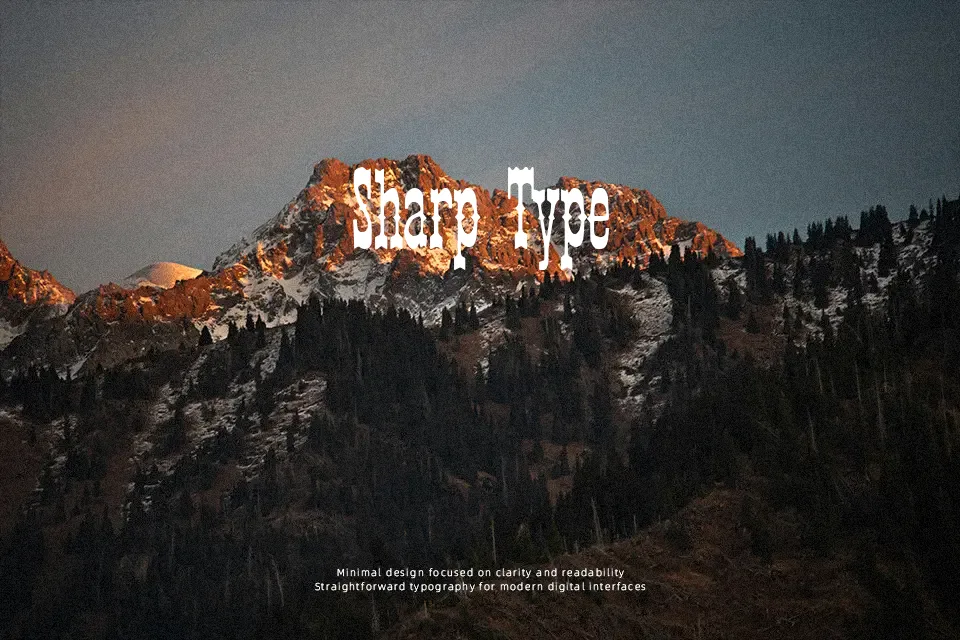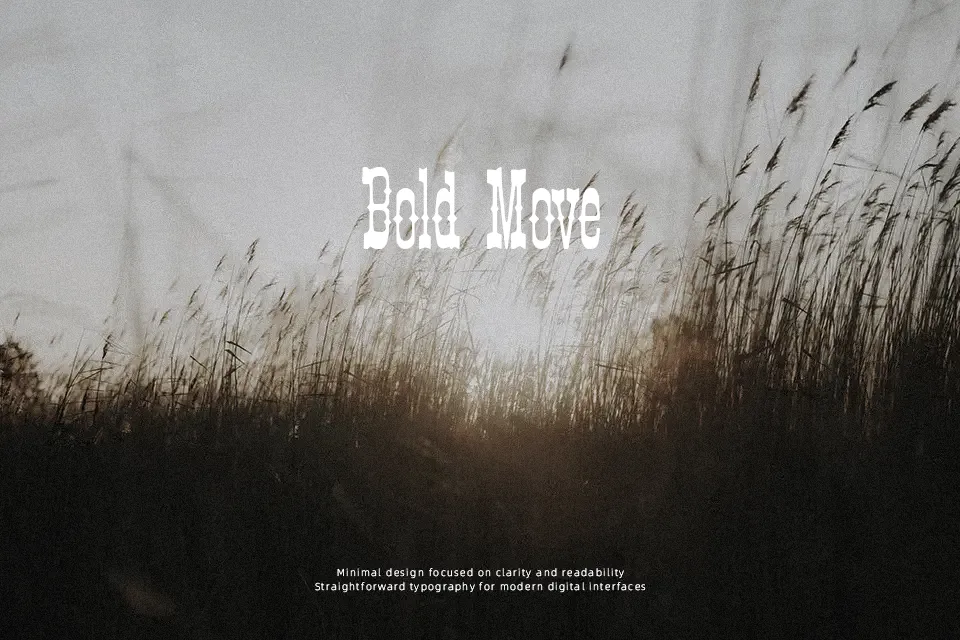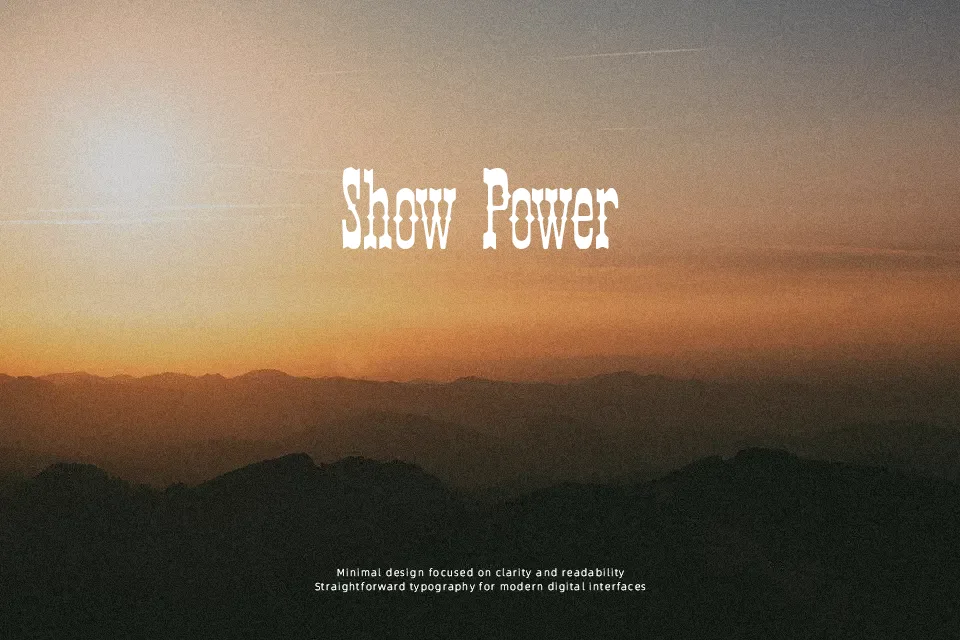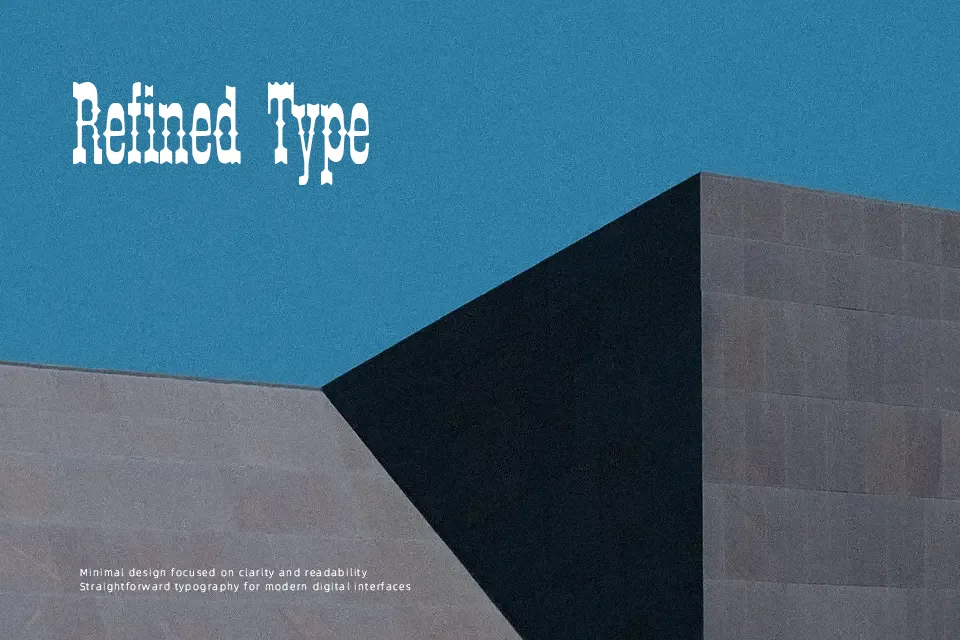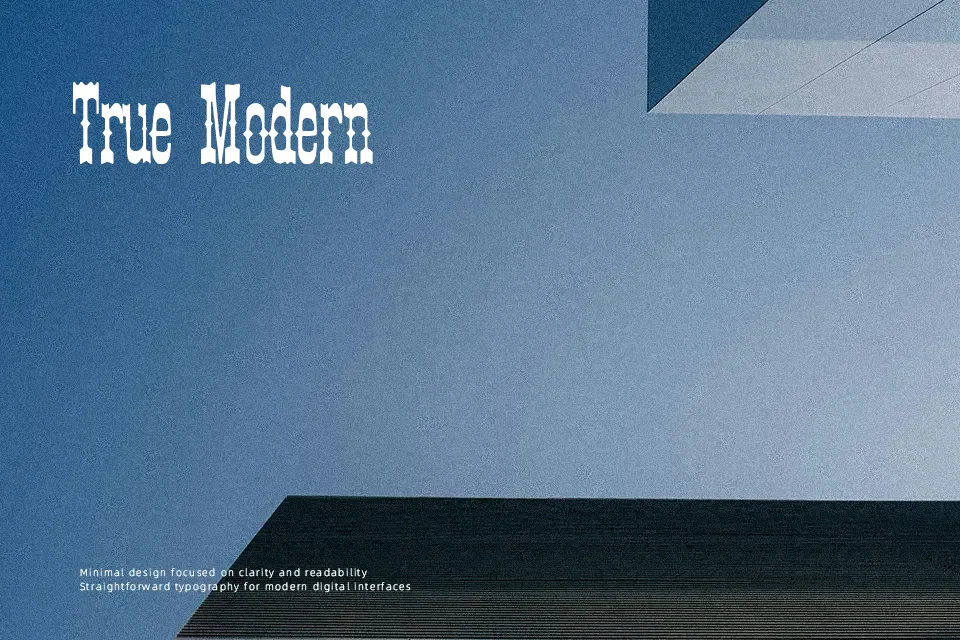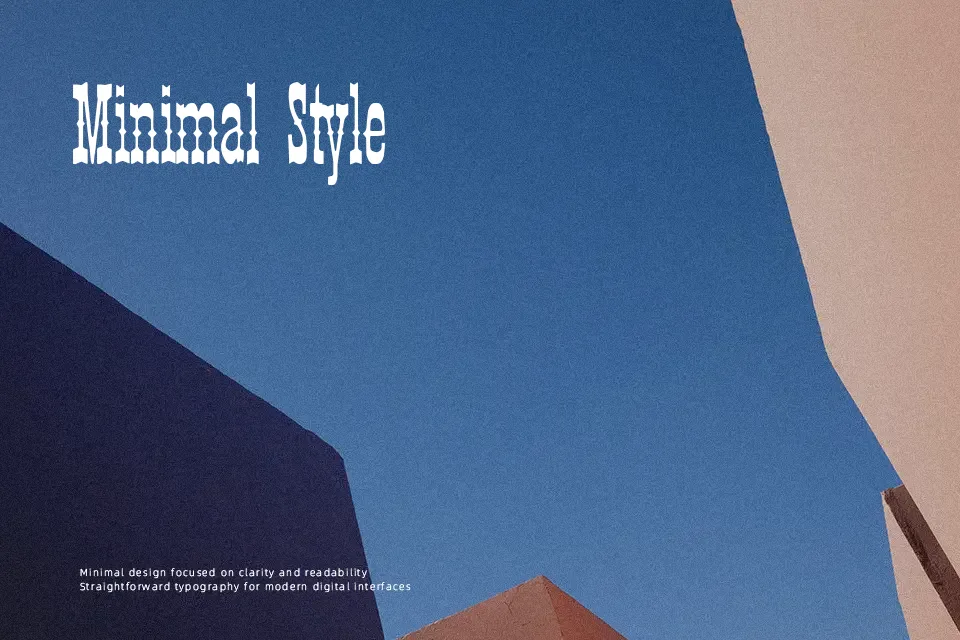
The New Rancho Font
Featuring exaggerated vertical proportions and substantial block serifs, The New Rancho Font establishes an authentic nineteenth-century frontier aesthetic across its glyph set. The letterforms display uniform, low-contrast stroke weights paired with tight horizontal spacing that maximizes visual impact on the page. Sturdy squared serifs anchor each character, maintaining structural definition even when viewed from considerable distances. While these dense, heavy contours deliver outstanding clarity in large display headlines, marquee banners, and saloon-style branding, the tight tracking and heavy shapes quickly degrade legibility in extended text settings. Consequently, the typeface remains unsuited for multi-line editorial copy or compact body paragraphs.
Best For: vintage rodeo posters, saloon themed signage, craft whiskey labels, festival headline banners
Not Ideal For: continuous book body text, mobile interface labels, dense financial spreadsheets, multi-column editorial articles
Perfect for advertising, headline, and logo, with a bold and condensed style.